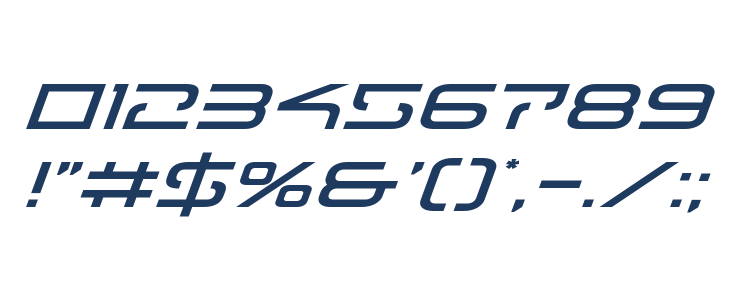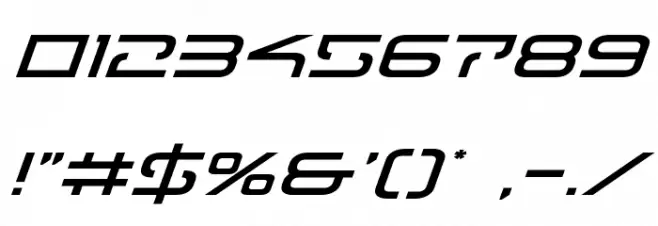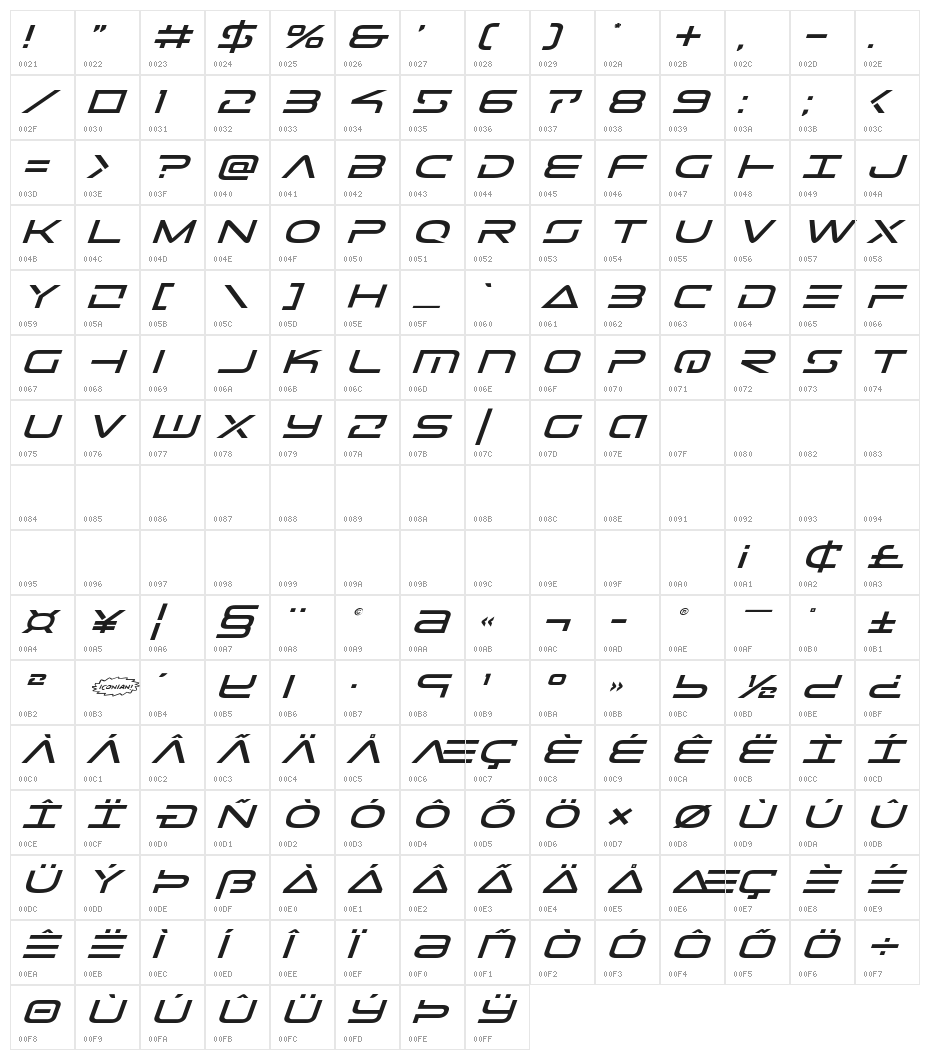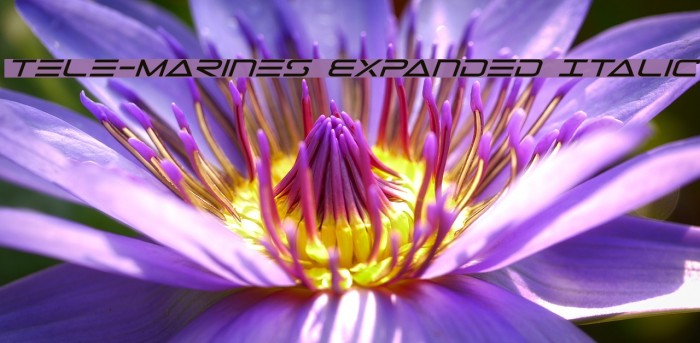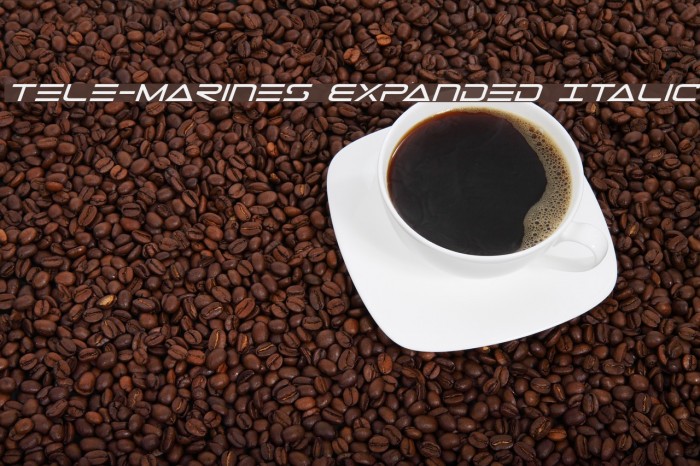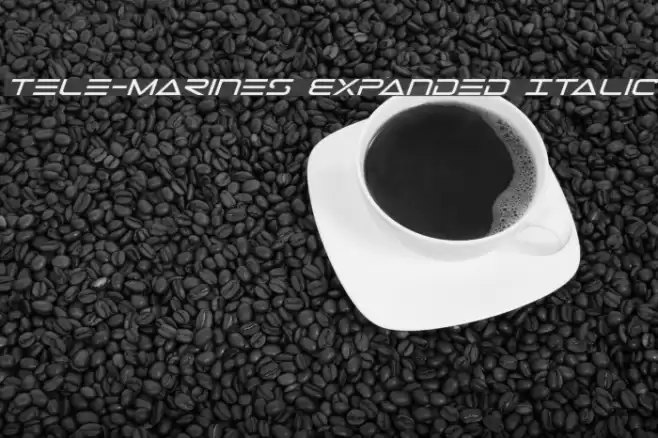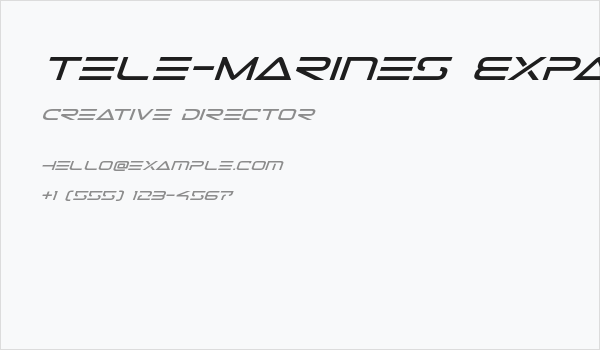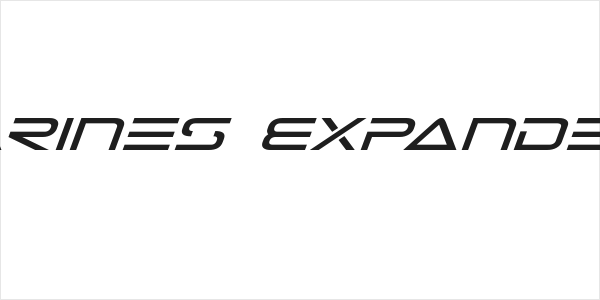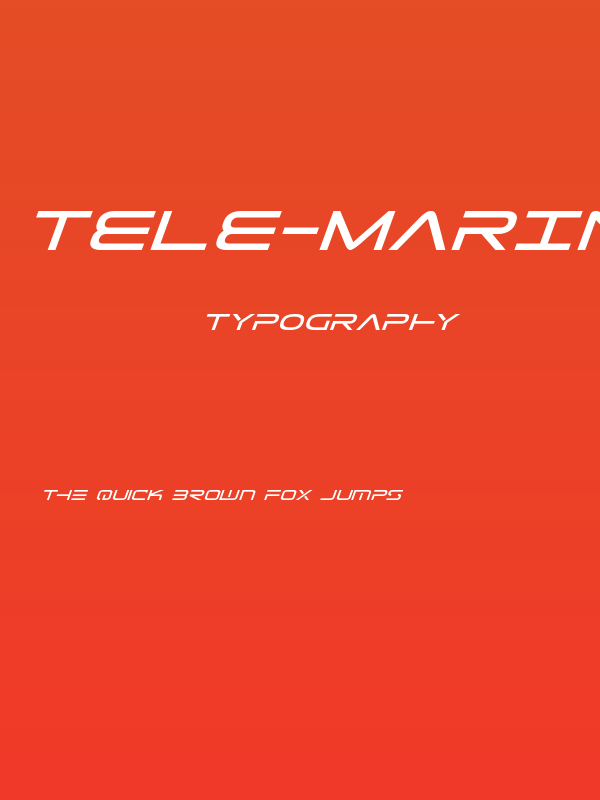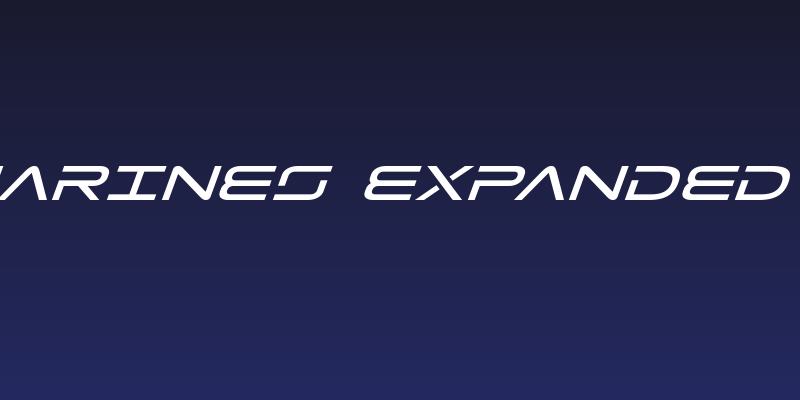
Tele-Marines Expanded Italic Font
Tele-Marines Expanded Italic Description
This font exhibits a futuristic and dynamic style, characterized by its sleek, angular letterforms and italicized slant. The characters are designed with a sense of motion, featuring sharp edges and a streamlined appearance that suggests speed and modernity. The uppercase and lowercase letters maintain a consistent geometric structure, while the numerals and special characters complement the overall aesthetic with their bold and distinctive shapes. The font's expanded width enhances its readability, making it suitable for various design applications where a contemporary and energetic look is desired.
Proposed ProjectsIdeal for technology branding, sci-fi movie posters, video game titles, and modern advertising campaigns.